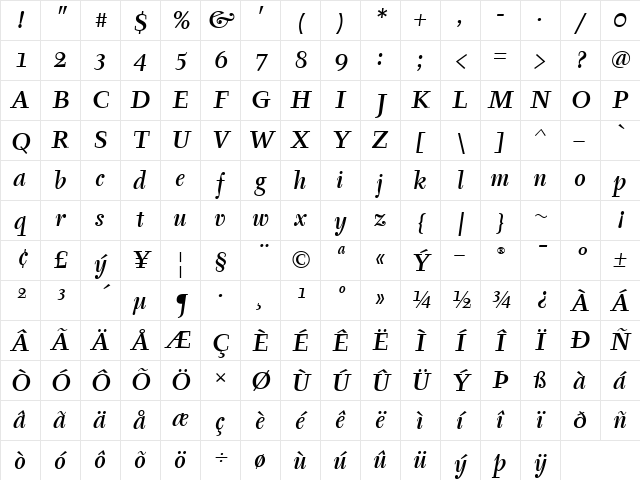
TyfaMdITC TT MediumItalic
Style: MediumItalic
Foundry: International Typeface Corporation
Designer: Josef Tyfa/Frantisek Storm
Design Context for TyfaMdITC TT
TyfaMdITC TT is a composed and adaptable typeface that performs quietly and consistently across a wide range of design contexts. The slanted form adds forward momentum and visual energy.